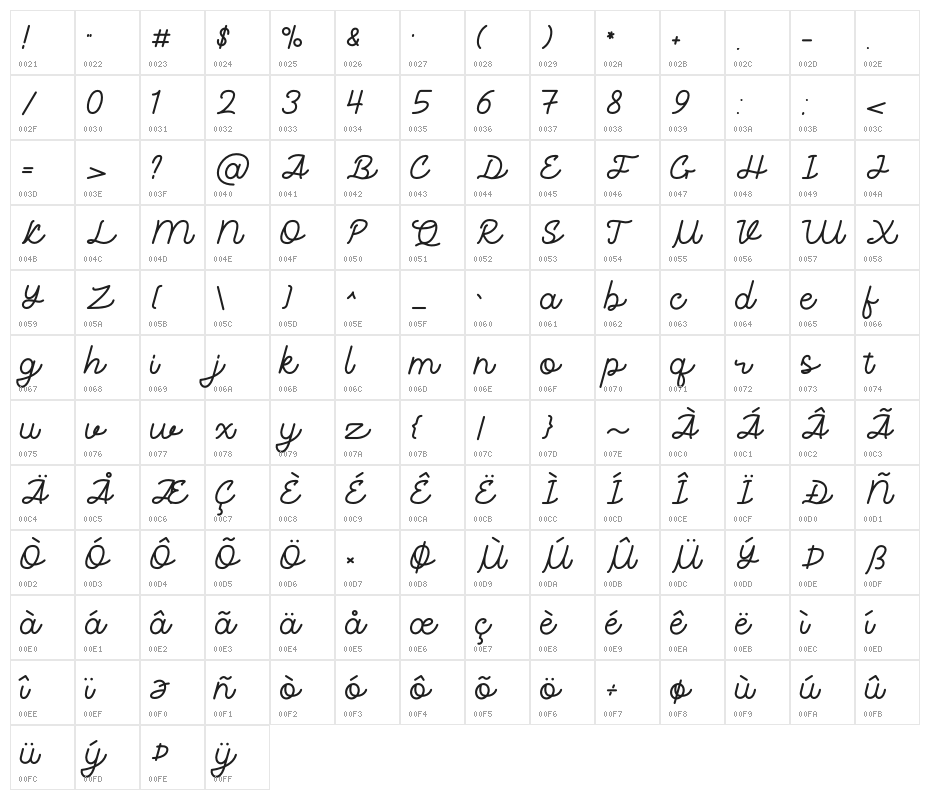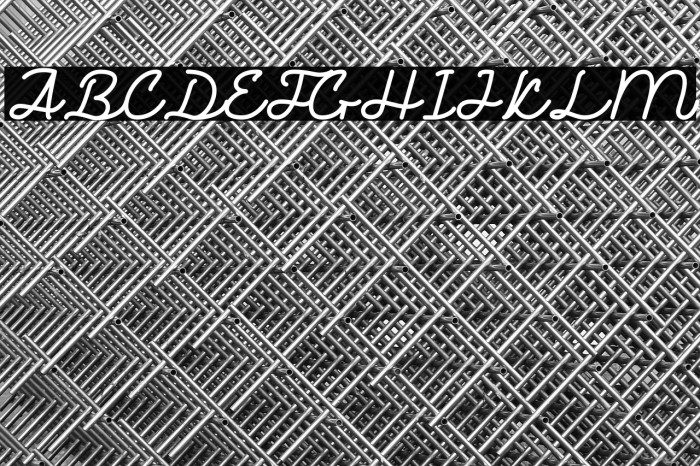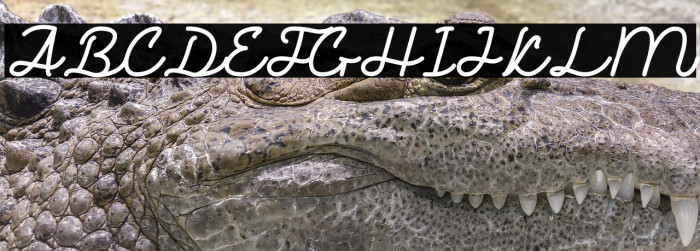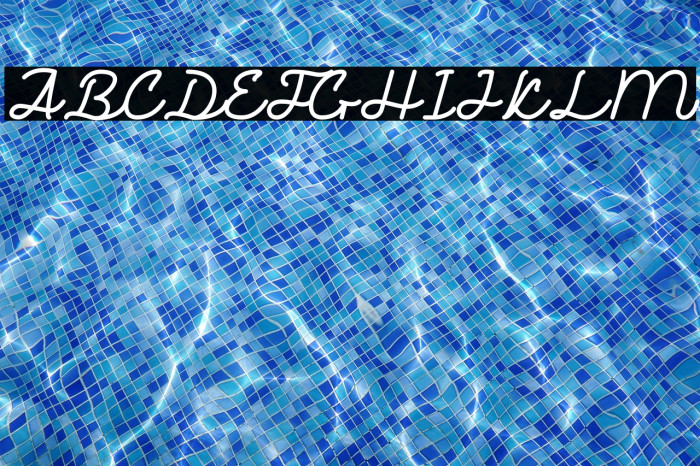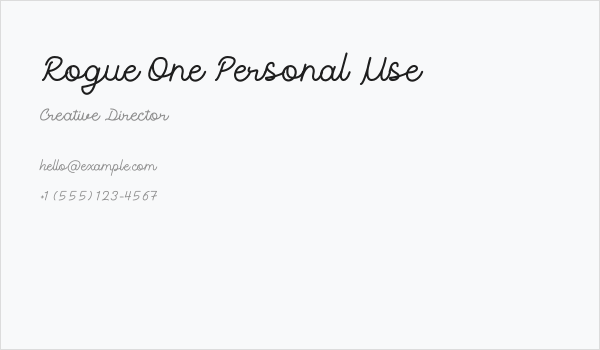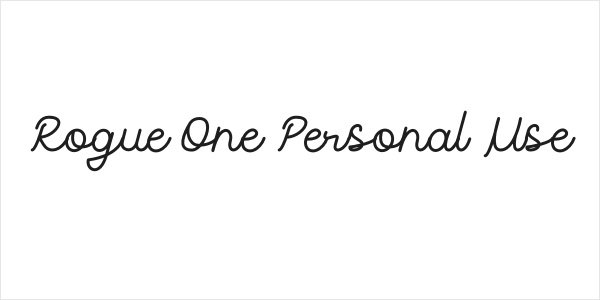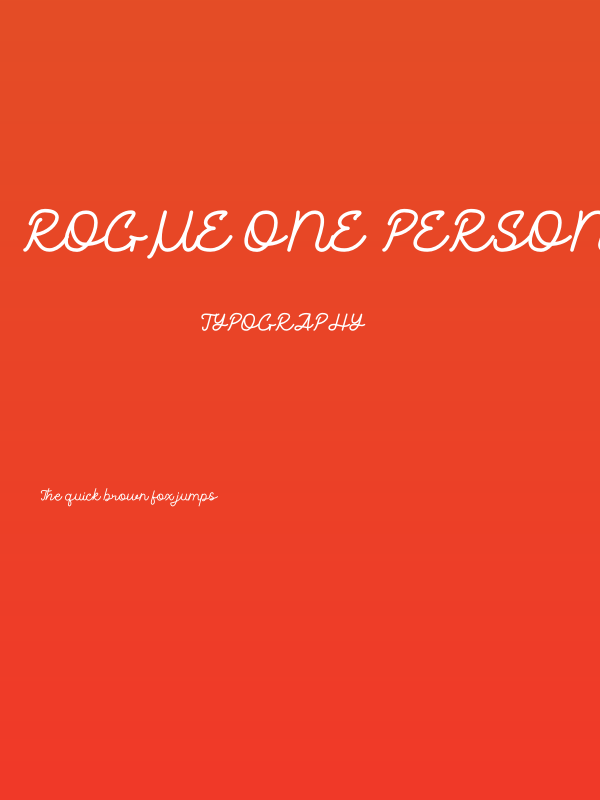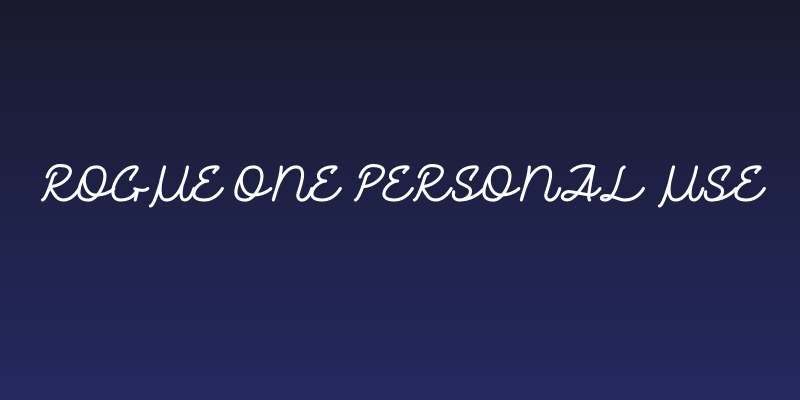
Rogue One Personal Use Font
Rogue One Personal Use Description
This font features a smooth, flowing script style that emulates elegant handwriting. The uppercase letters are slightly more structured, maintaining a balance between formality and casual flair. The lowercase letters are connected, enhancing the cursive aesthetic. Numbers and special characters are designed to match the overall fluidity, making them blend seamlessly with the alphabet. The strokes are consistent in thickness, providing a harmonious and legible appearance. This font is ideal for projects that require a personal touch, such as invitations, greeting cards, or branding materials that aim to convey warmth and approachability.
Overall StyleElegant, Handwritten
Use CaseHeadlines, Invitations, Greeting cards
Proposed ProjectsIdeal for invitations, greeting cards, personal branding, and any project requiring a handwritten touch.